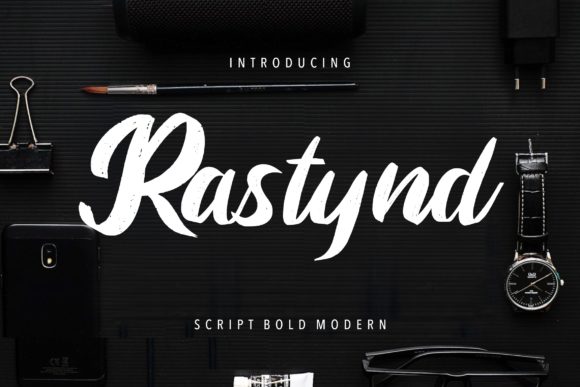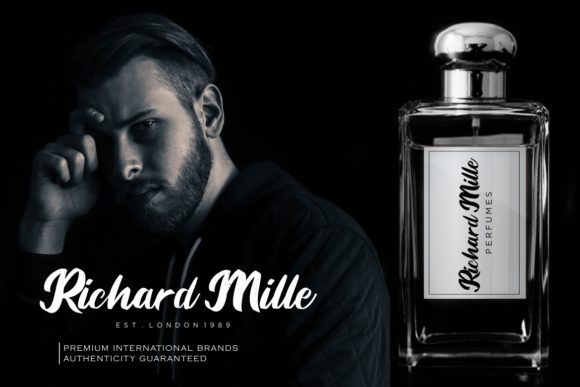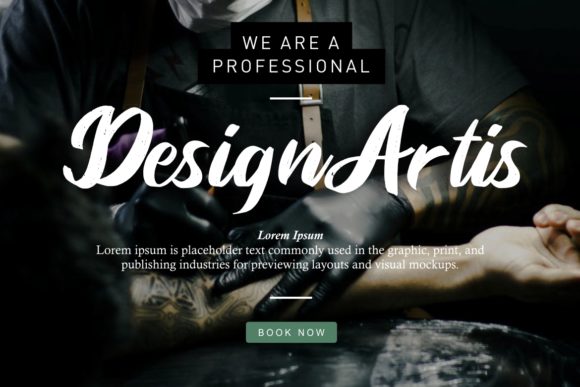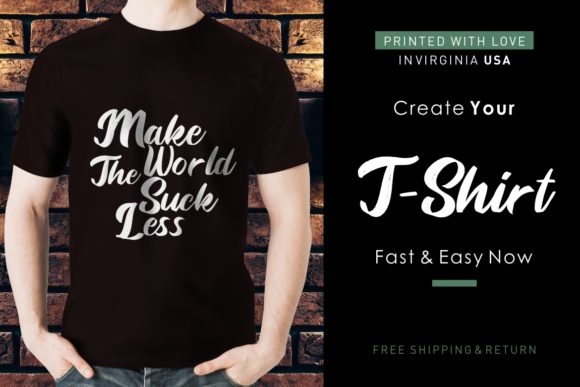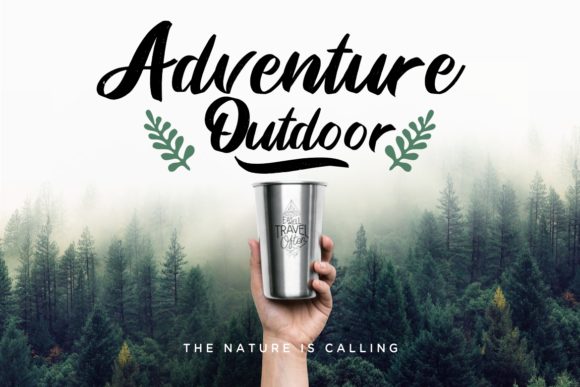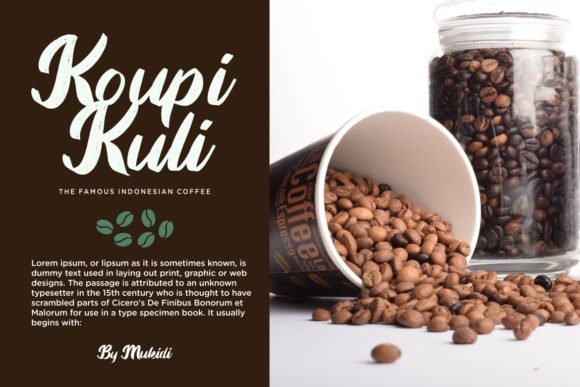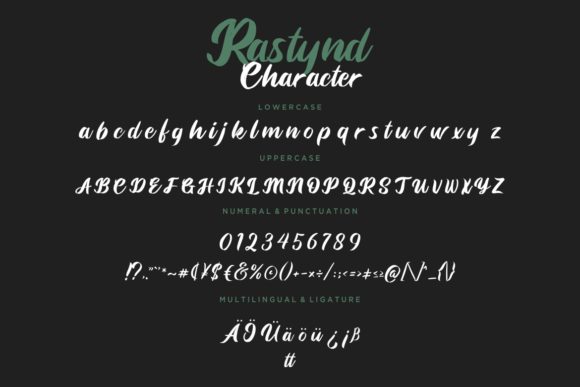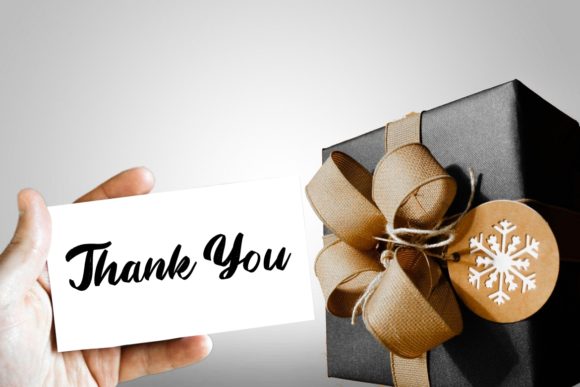
HomeScript FontsRastynd Font Script Fonts Rastynd Font FacebookXPinterestWhatsApp Rastynd Font Poster 2 Rastynd Font Poster 3 Rastynd Font Poster 4 Rastynd Font Poster 5 Rastynd Font Poster 6 Rastynd Font Poster 7 Rastynd Font Poster 8 About Rastynd Font Rastynd is a bold and modern script font with an adventurous feel. It’s perfect for any outdoorsy deisgn project! DOWNLOAD ON CREATIVE FABRICAThis font is sold and delivered by Creative Fabrica. Font Canyon may earn a commission if you buy through this link. People also explored Magical Spell Font Rotterdam Bridge Font Black Lonthe Font Moon Type Savage Brush Font Spooky Creeky Stretchy Pants Font Kylie Font Kingstoner Signature Font 359 0 TagsRastynd Font Previous articleJelymist FontNext articleShenttica Font LEAVE A REPLY Cancel reply Comment: Please enter your comment! Name:* Please enter your name here Email:* You have entered an incorrect email address! Please enter your email address here Website: Save my name, email, and website in this browser for the next time I comment. Personal Use Free Burnstown Dam Personal Use Free Read more about this font Dream Personal Use Free Read more about this font Blast Personal Use Free Read more about this font Kidly Personal Use Free Read more about this font BLOG Using Fonts in Digital Marketing: Tips to Strengthen Your Brand Identity In the realm of digital marketing, every visual element plays a crucial role in shaping a brand's identity, and fonts are no exception. The... Free vs Paid Fonts: Why Investing in Premium Fonts Is Worth It Top 7 Google Fonts Alternatives for Faster and Privacy-Friendly Web Design (2025) Free Fonts Risk: Why Free Fonts Can Be Dangerous for Designers